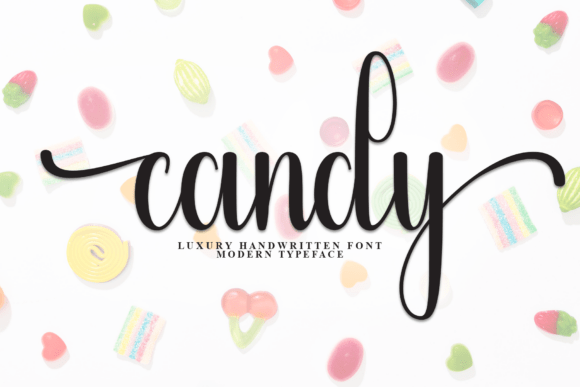
The Sweet Charm of Candy Font: Elevating Your Designs with Whimsy and Delight
I’ll never forget the moment I stumbled upon the perfect font for a wedding invitation project. I was working late, surrounded by design samples and sipping cold coffee, when I finally found Candy Font – an expertly hand-drawn display font that instantly captured the playful, celebratory vibe I was looking for. It was as if the stars aligned, and my design woes disappeared. In this article, I’ll share with you why Candy Font has become a staple in my design toolkit and how you can make the most of its captivating charm.
• βœ… Unique, hand-drawn design that exudes warmth and charisma
• βœ… Perfect for festive celebrations, wedding invitations, greeting cards, and more
• βœ… Vivacious refinement that adds a touch of whimsy to your designs
• βœ… Extensive OpenType features, glyphs, and stylistic alternates for creative freedom
A Few Quirks to Keep in Mind πŸ€”
• ⚠️ Some characters may require manual kerning for optimal spacing
• ⚠️ Limited suitability for body text or long-form content due to its display nature
The Story Behind Candy Font: Designer Inspiration
Candy Font was born from the creative mind of a talented type designer who sought to capture the magic of life’s celebrations in a single font. Inspired by vintage candy advertisements, festive decorations, and joyful gatherings, this font embodies the warmth and excitement of special occasions. Whether you’re designing wedding invitations, greeting cards, or simply want to add a touch of whimsy to your projects, Candy Font is the perfect choice.
Q: Is Candy Font suitable for body text?
A: While Candy Font is a beautiful display font, it’s not ideal for long-form content or body text due to its ornate nature. However, it can be used for short paragraphs or captions to add visual interest.
Q: Does Candy Font support OpenType features?
A: Absolutely! Candy Font comes with a range of OpenType features, including glyphs, stylistic alternates, and ligatures, giving you creative freedom to customize your text.